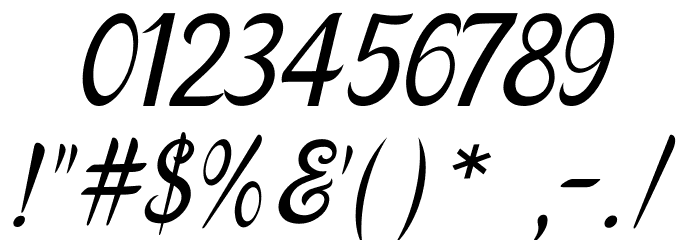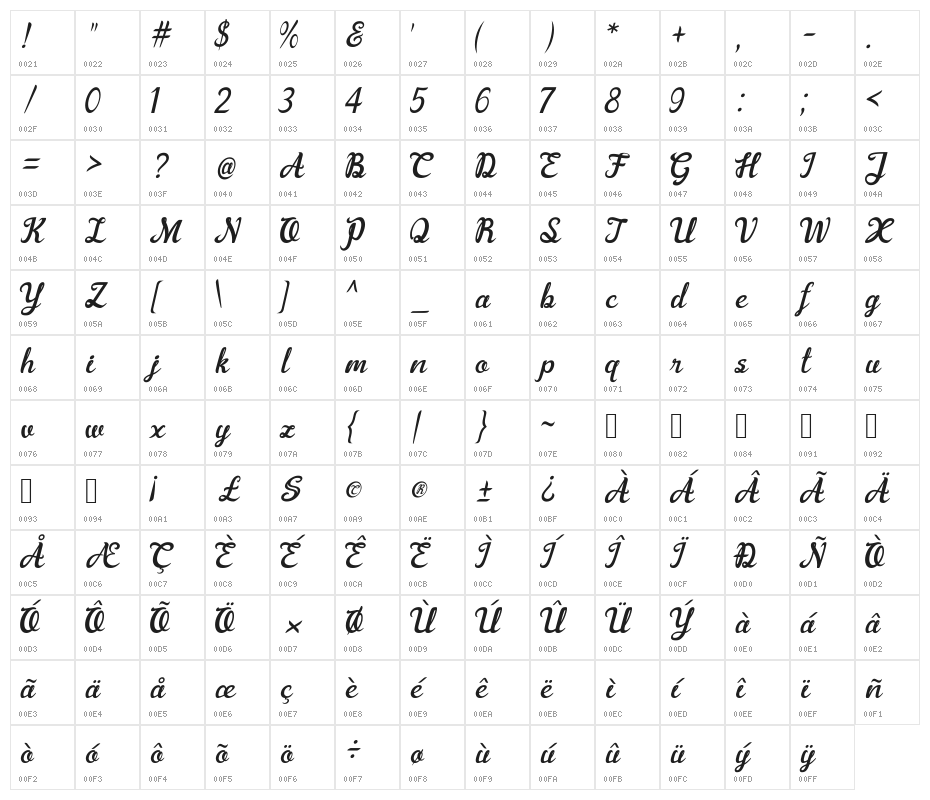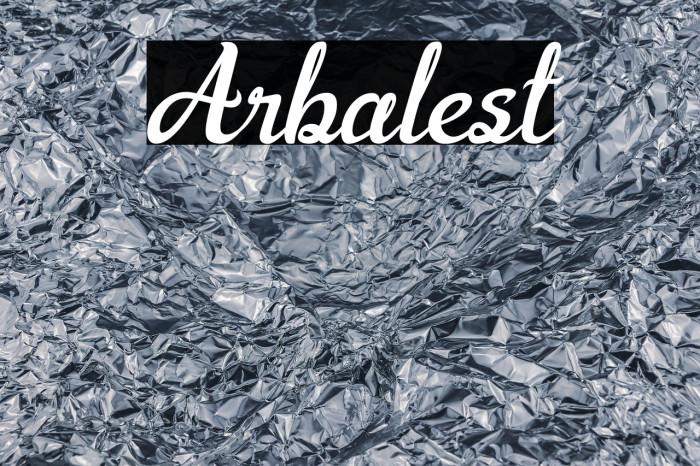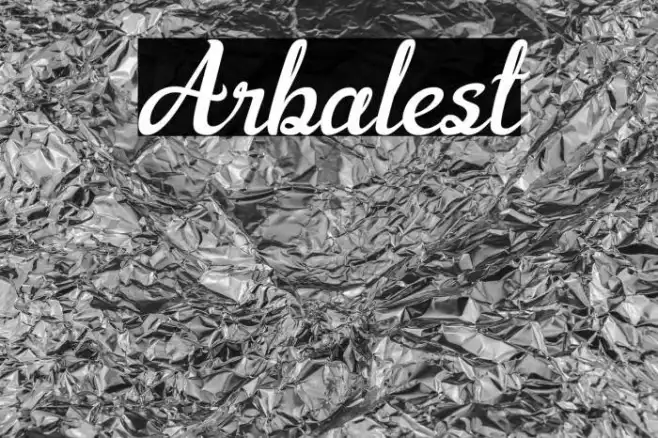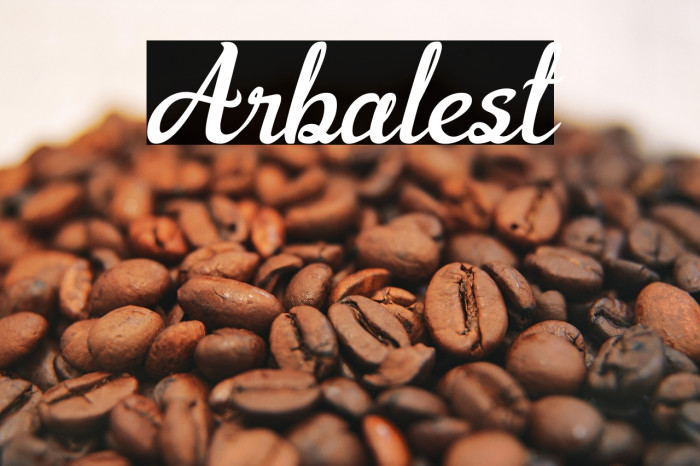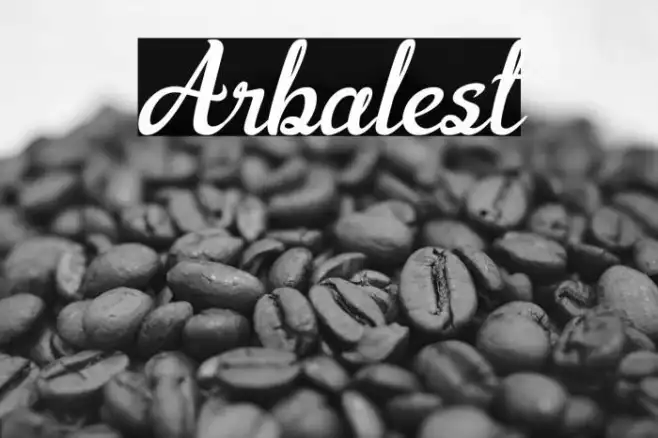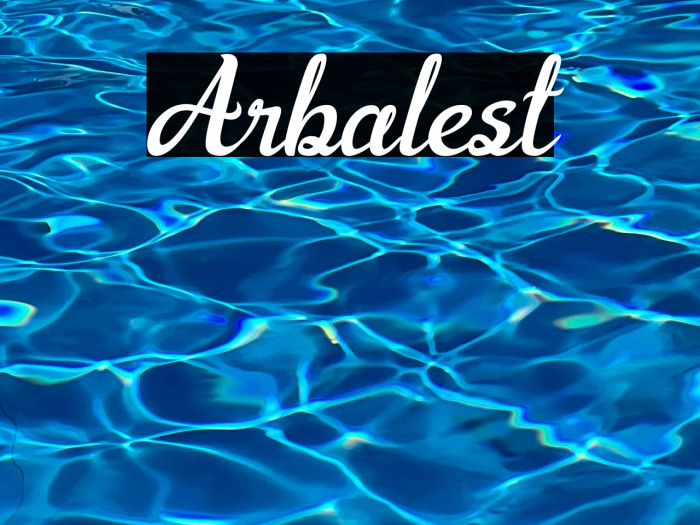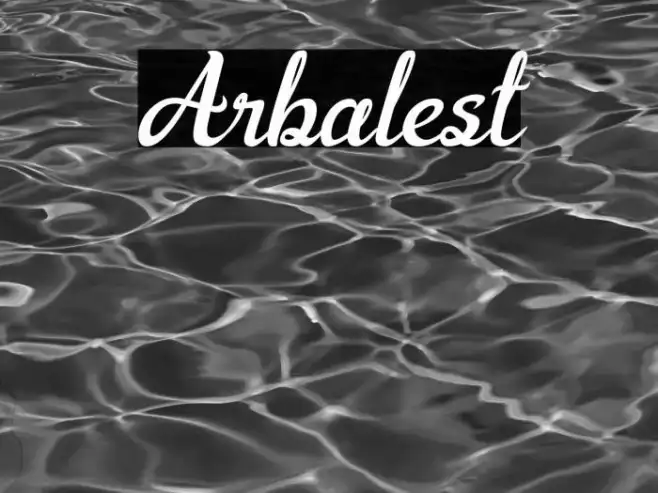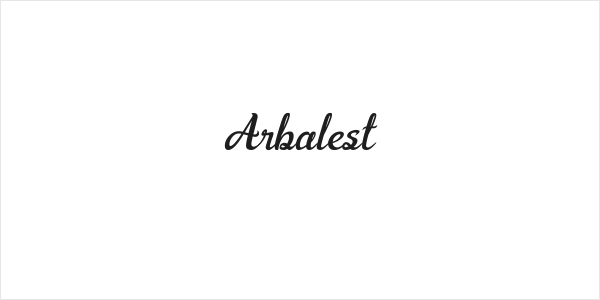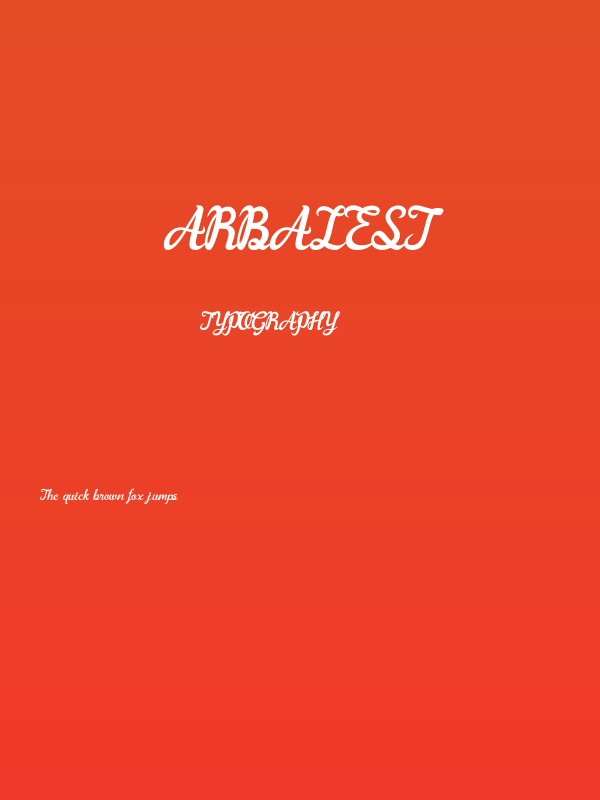
Arbalest Font
Arbalest Description
This font features a flowing, cursive style with elegant, sweeping strokes that give it a handwritten appearance. The uppercase letters are bold and prominent, with distinctive loops and curves that add a touch of sophistication. The lowercase letters maintain a consistent flow, enhancing readability while retaining a stylish flair. Numbers are clear and well-defined, matching the overall aesthetic. Special characters are crafted with the same attention to detail, ensuring they blend seamlessly with the rest of the font. This font is ideal for projects that require a personal, artistic touch.
| Proposed Projects | Ideal for wedding invitations, greeting cards, personal branding, and artistic projects. |